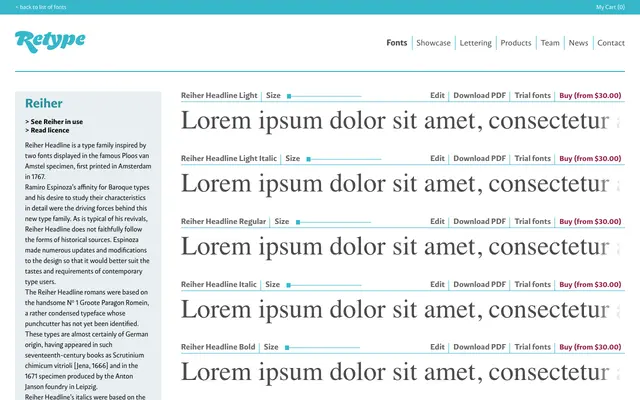
Reiher
A display serif family in four weights with italics and an Open variant, designed for headline use.
Reiher is a headline-oriented serif offered in four weights from Light to Black, each with a matching italic. The family includes an Open style, suggesting an inline or countered variant suited to large display settings. Pricing starts at $30 per style, with trial fonts available.
The family is labelled 'Headline' throughout, indicating a display-oriented design optimised for large sizes rather than continuous text. The inclusion of an Open variant and the name suggest a distinctive, structured serif with display intent.